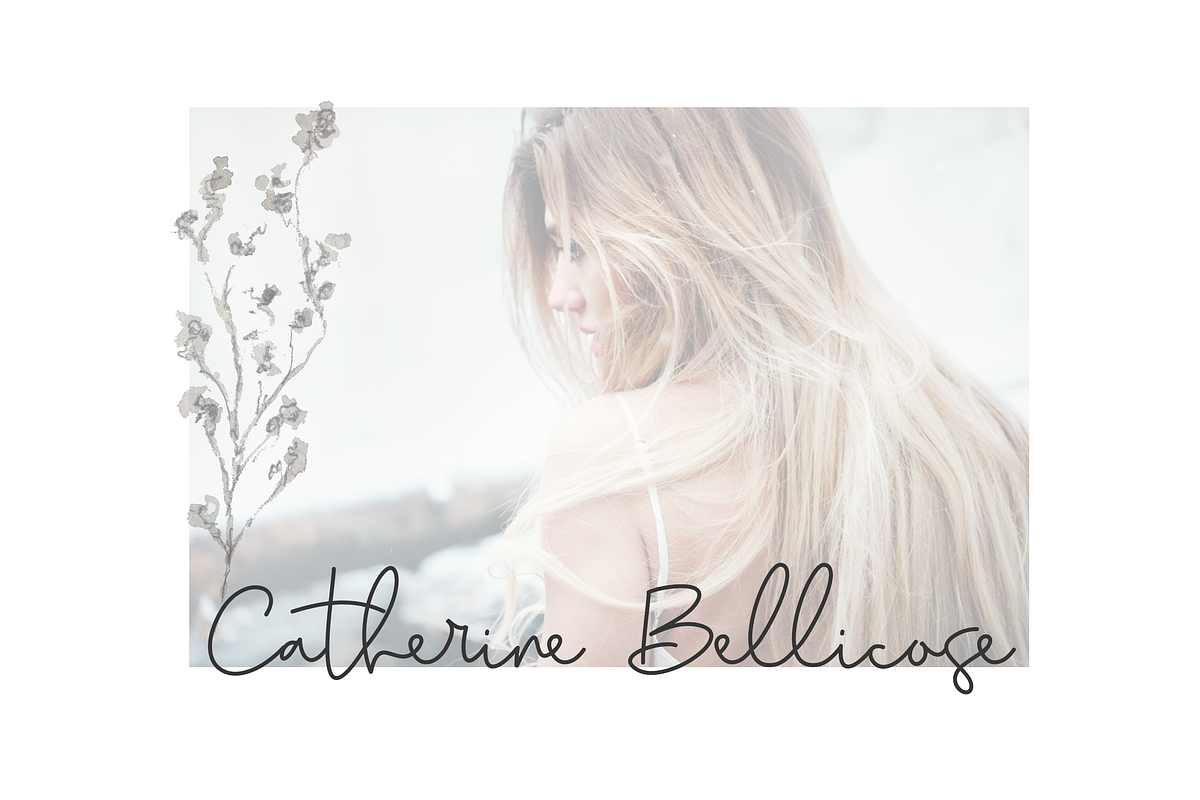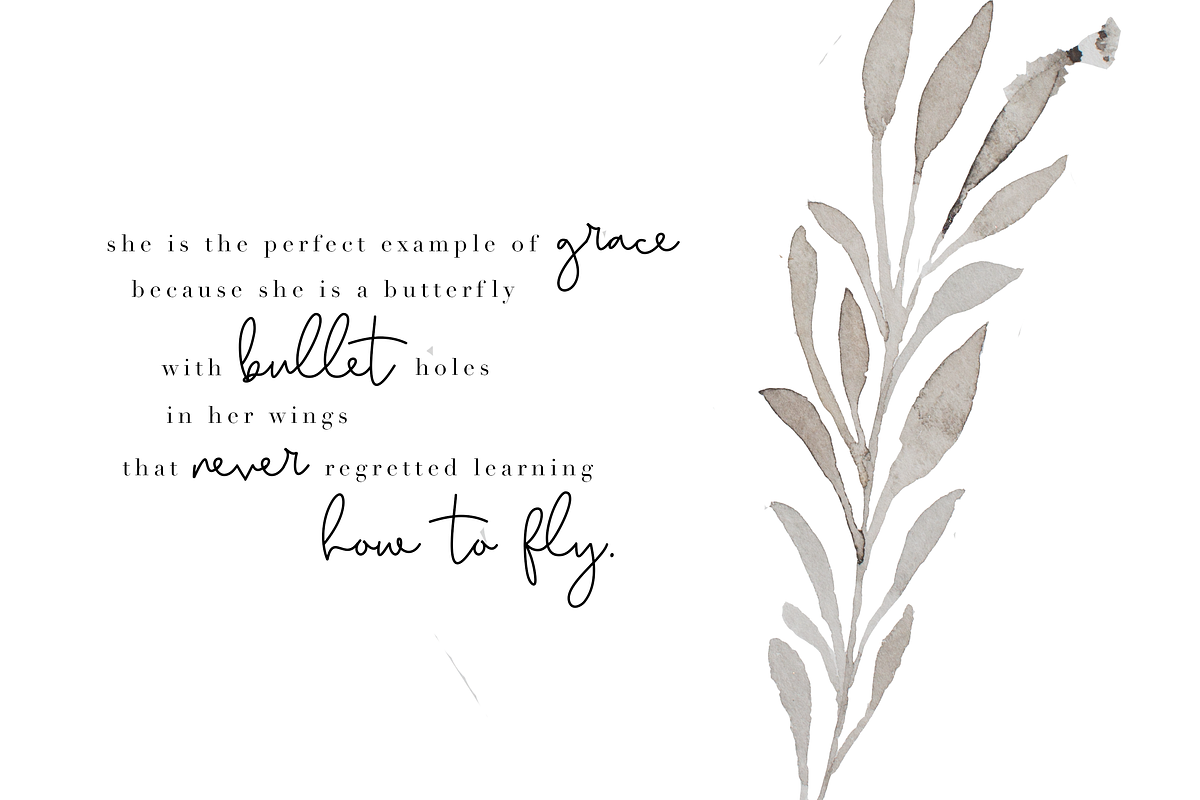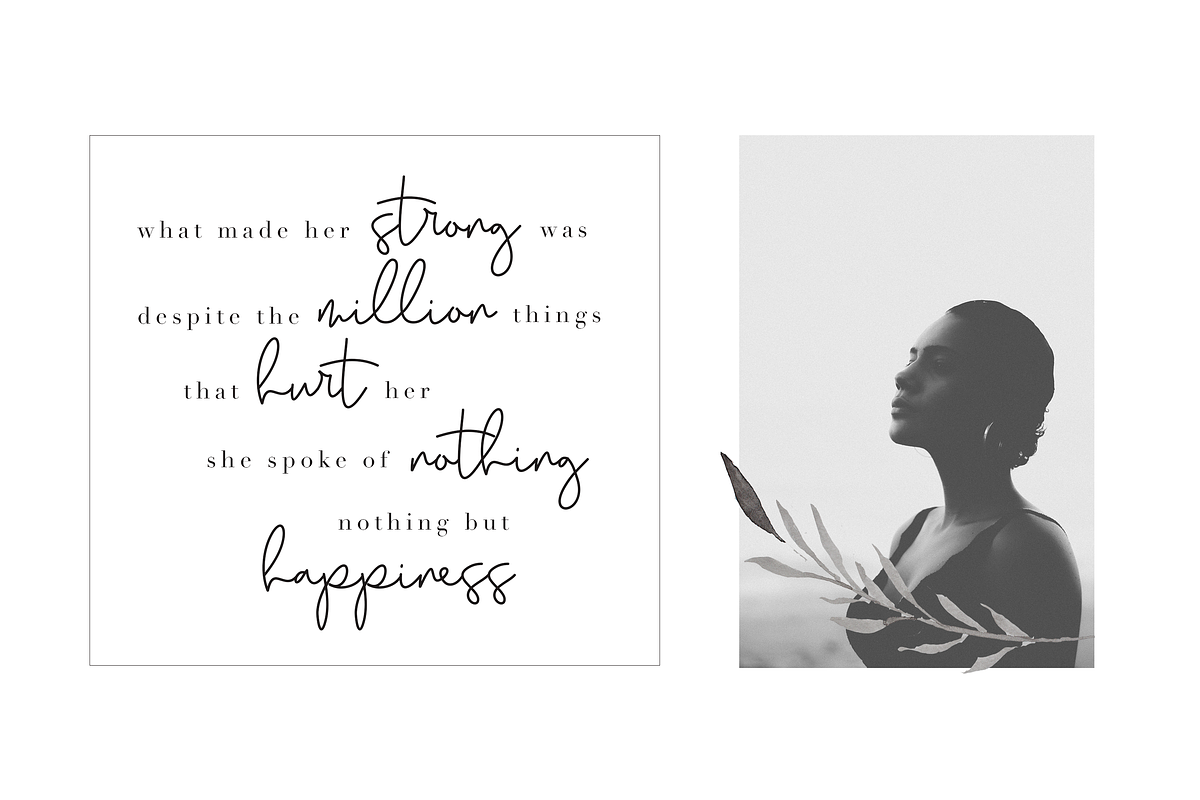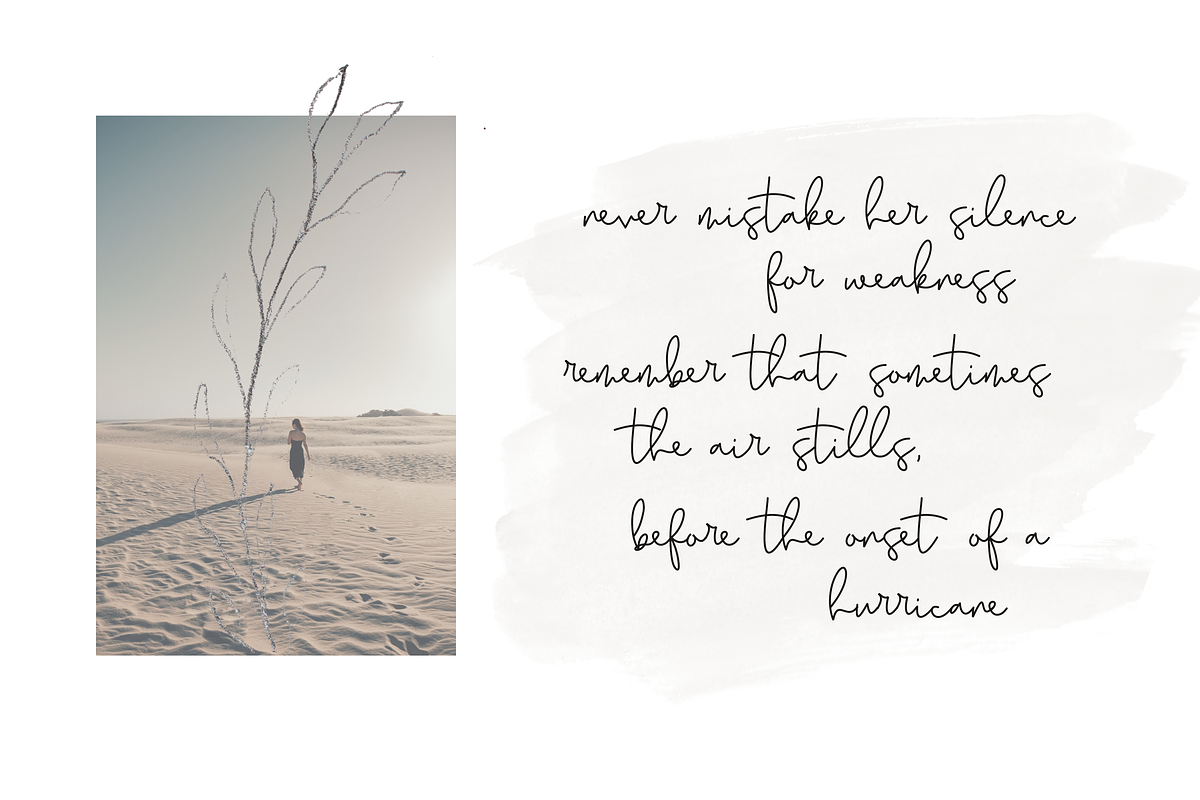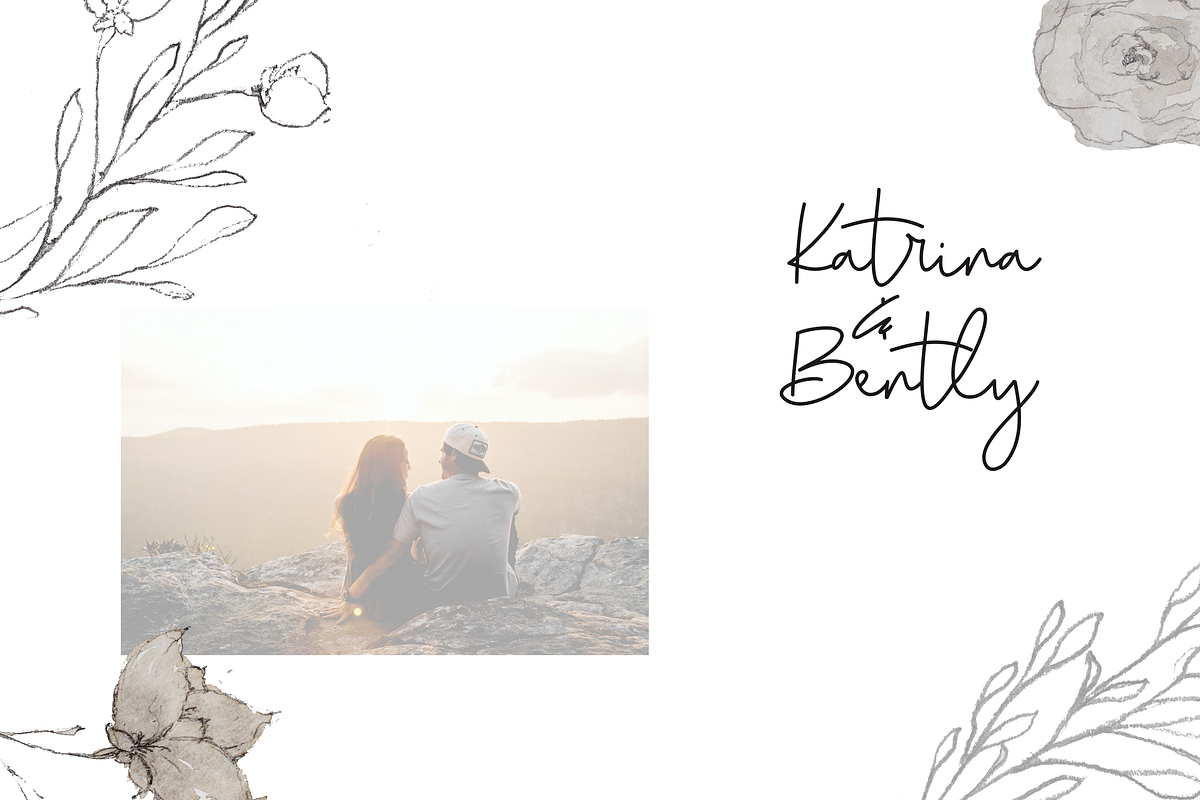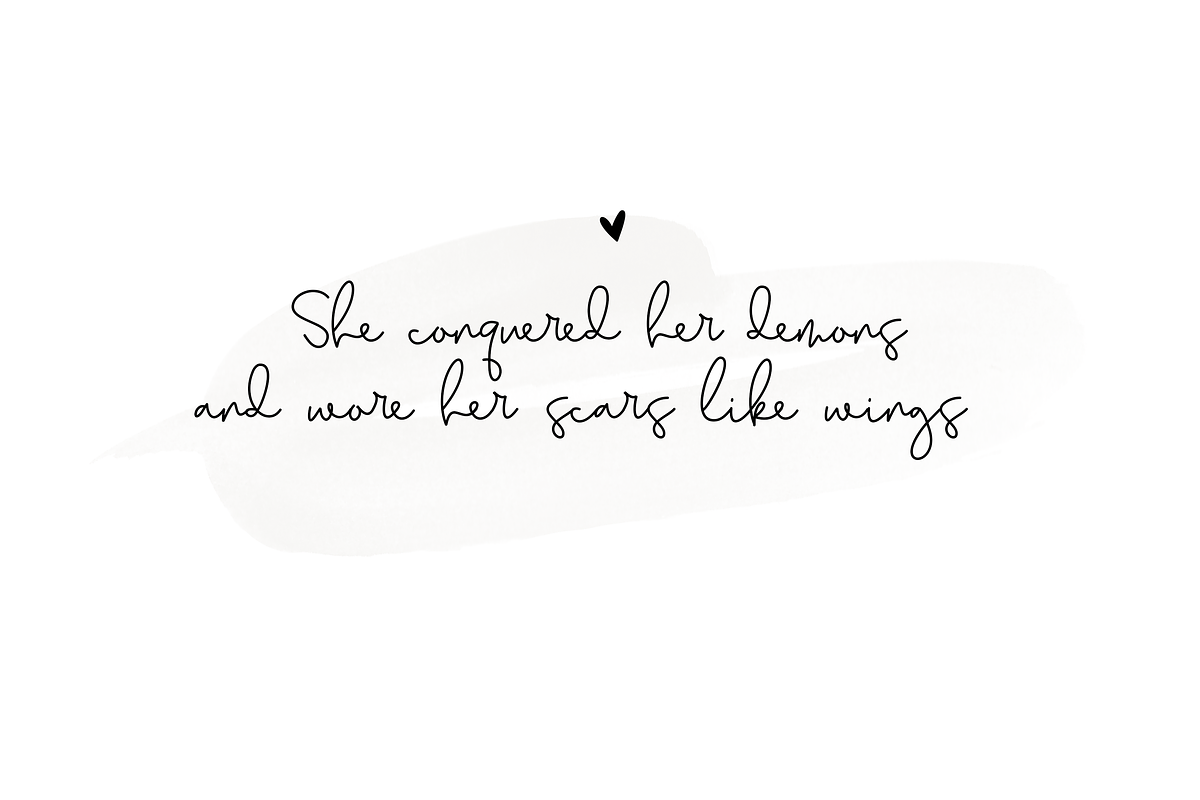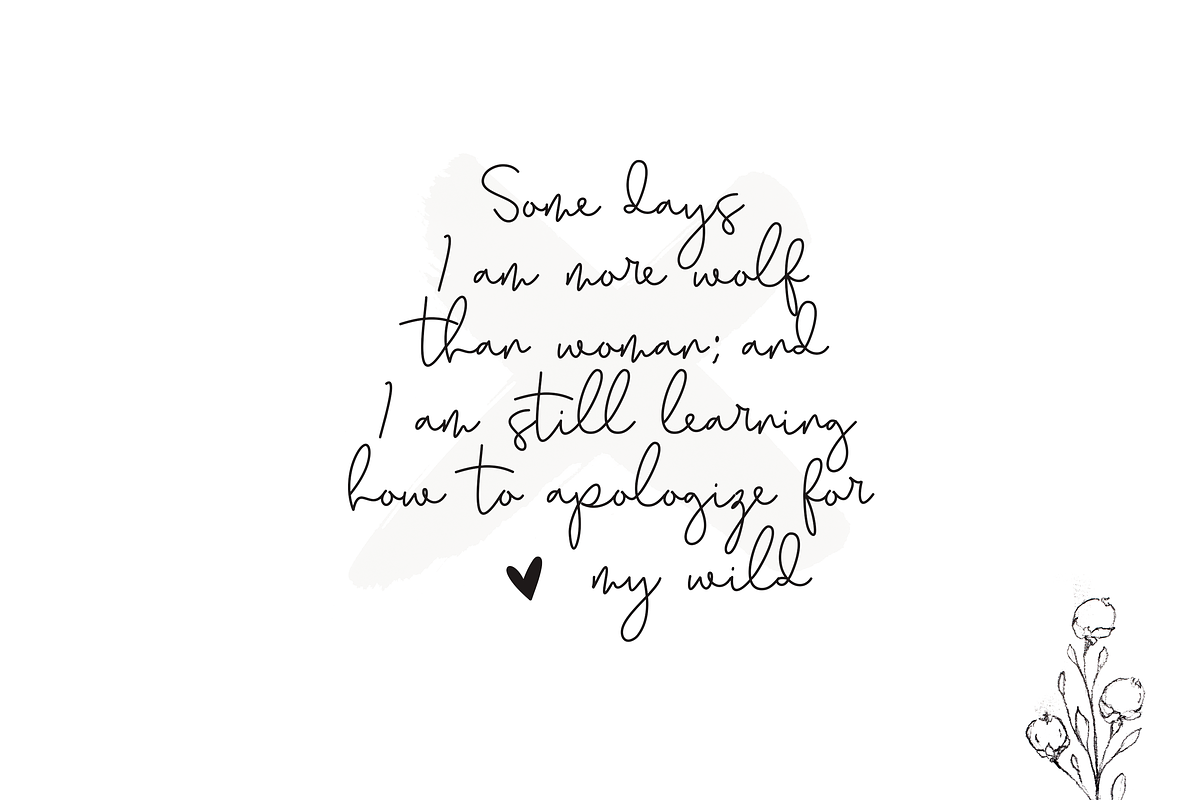
Earthy - A Handwritten Script Font
Earthyis a delicate handwritten script.
This font is perfect for headings, blog titles, logos, brandings, invitations and more!
Earthy - A Handwritten Script Font by KA Designs fits naturally into Branding, posters, packaging, typography.